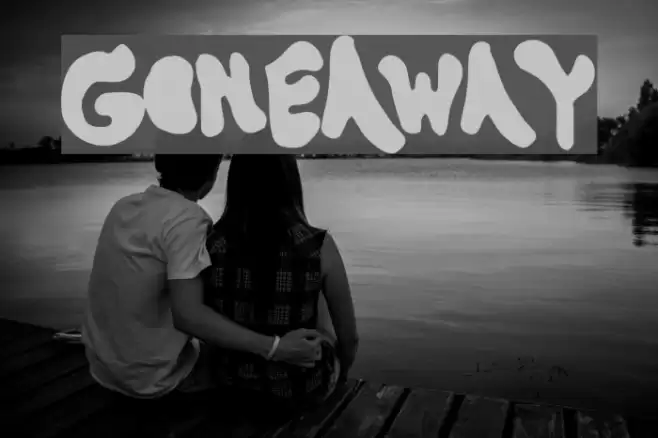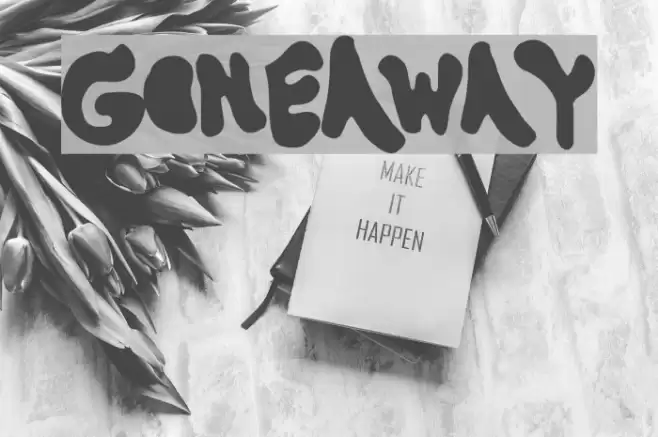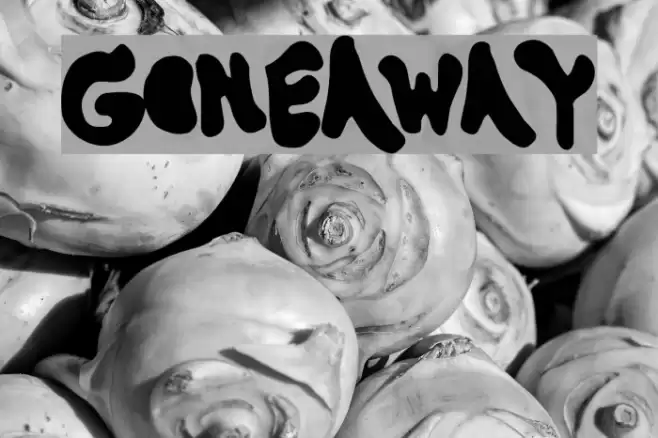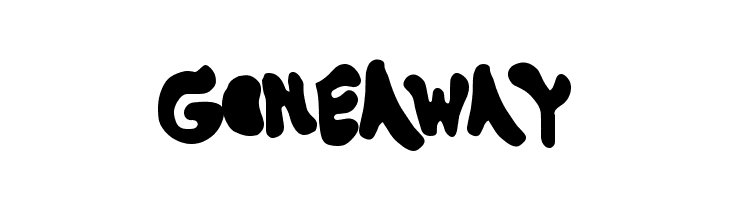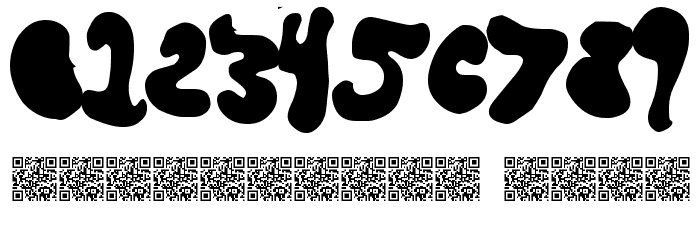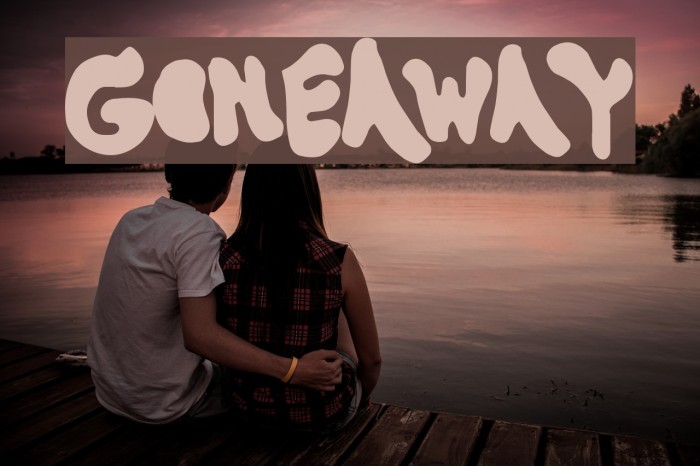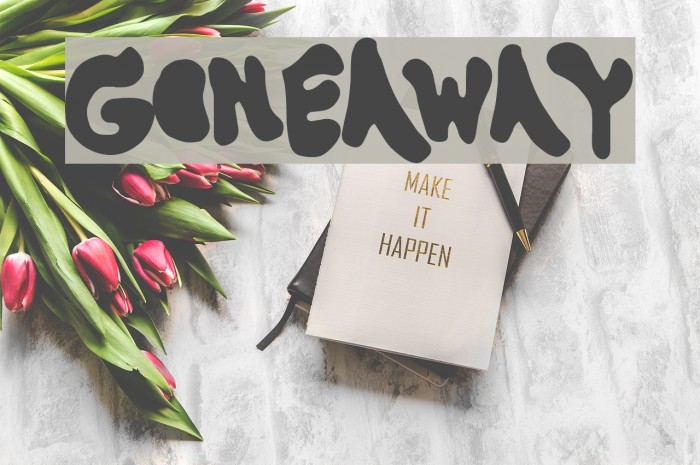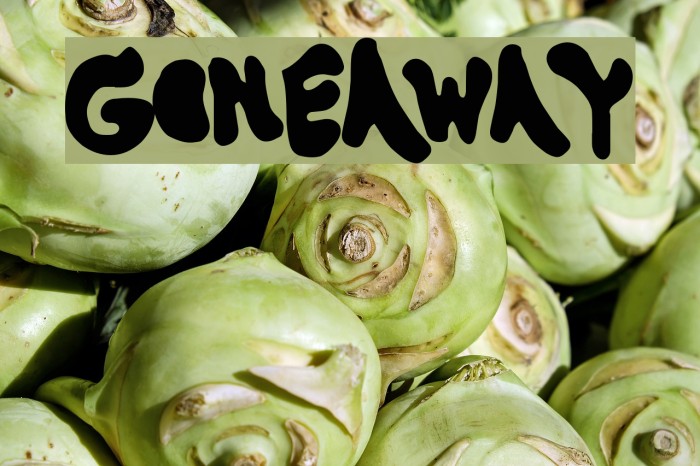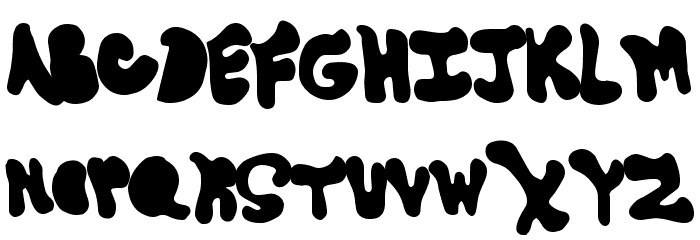
GoneAway Font
GoneAway Description
This font features a bold and playful style with a distinctly organic and fluid appearance. The characters are heavily rounded and appear almost as if they are melting or dripping, giving them a unique, whimsical look. The strokes are thick and uniform, contributing to a cohesive and bold presence. The letters are closely spaced, enhancing the compact and dense feel of the text. This font is highly decorative and stands out due to its unconventional and artistic design, making it suitable for creative and informal applications.
A bold, playful font with a fluid, melting appearance and thick, uniform strokes from Cartoon fonts.
- Proposed Projects: Ideal for children's book covers, playful posters, creative branding, and artistic projects.
- Character Spacing: Tight